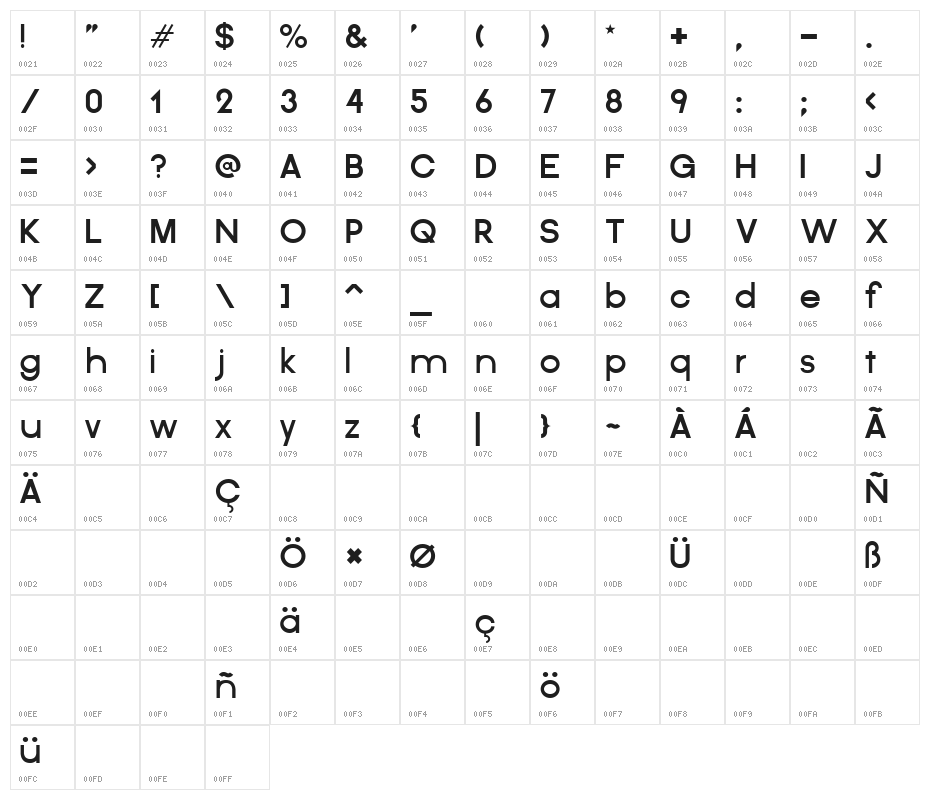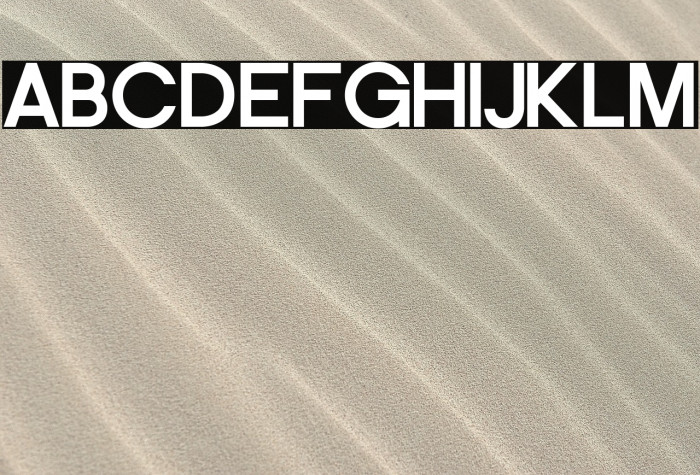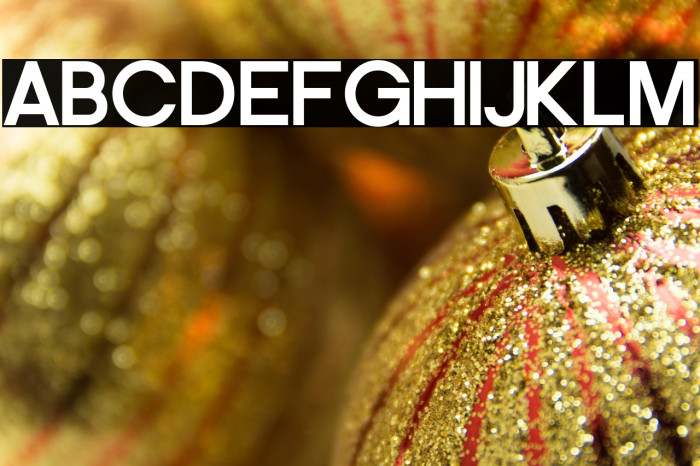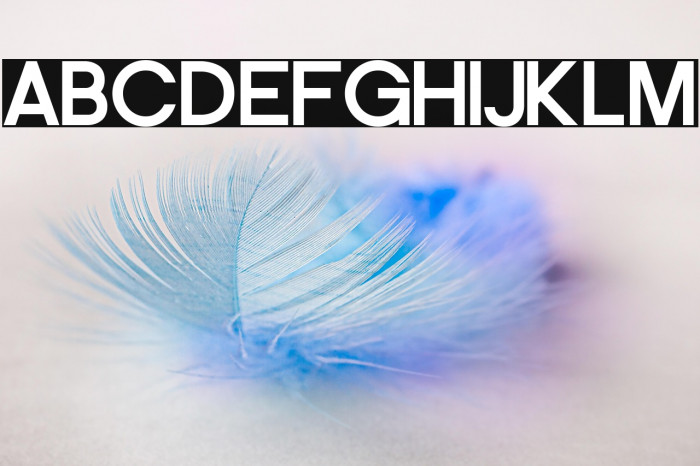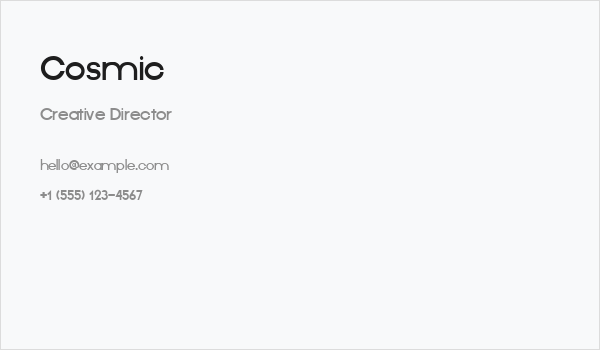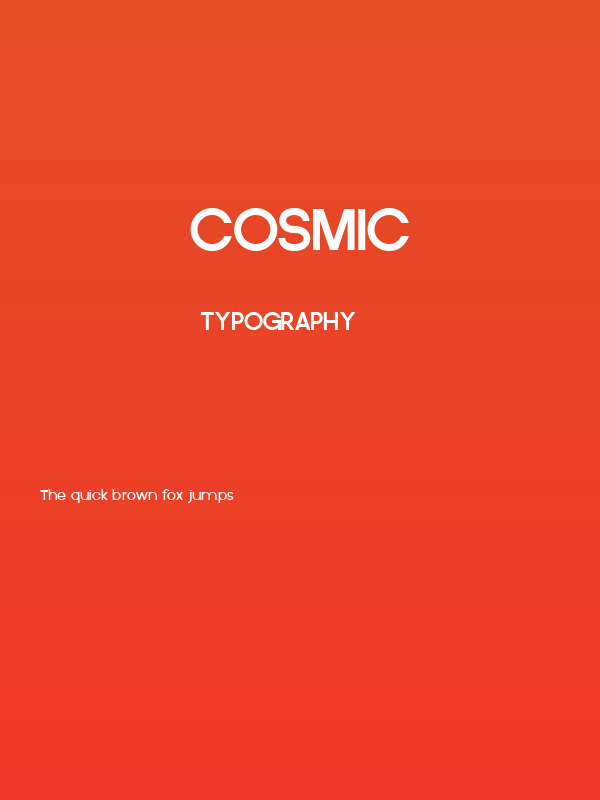
Cosmic Font
Cosmic Description
This font features a clean, geometric sans-serif style with a modern and minimalist aesthetic. The characters are well-balanced with uniform stroke widths, contributing to a harmonious and cohesive appearance. The uppercase letters are bold and impactful, while the lowercase letters maintain a smooth and rounded form. The numerals are clear and easy to read, making them suitable for various applications. Special characters are designed with the same attention to detail, ensuring consistency throughout the typeface. The overall design is versatile, making it ideal for both digital and print media.
| Use Case | Headlines, Logos, Branding |
| Proposed Projects | Ideal for branding, web design, advertising, and editorial layouts. |